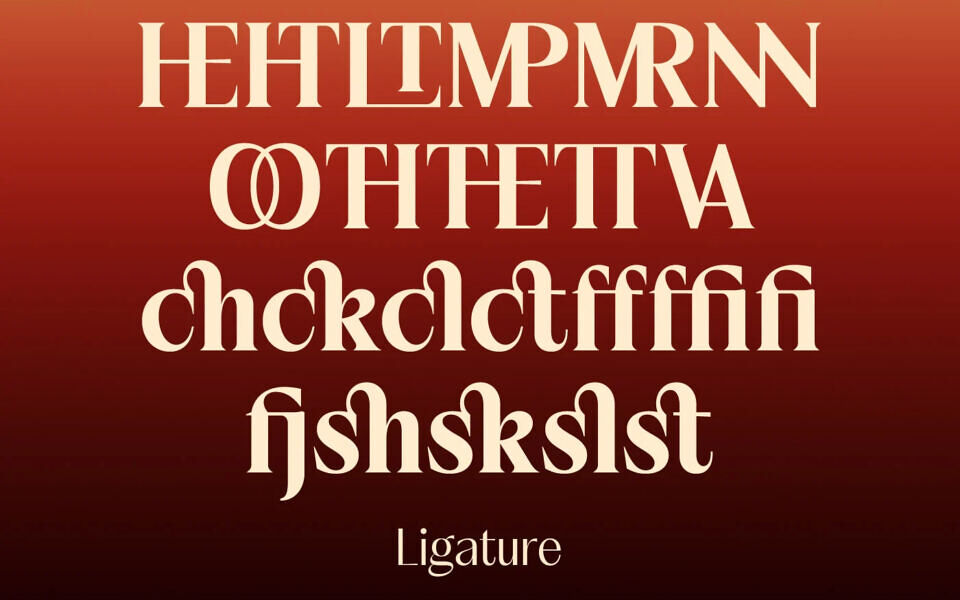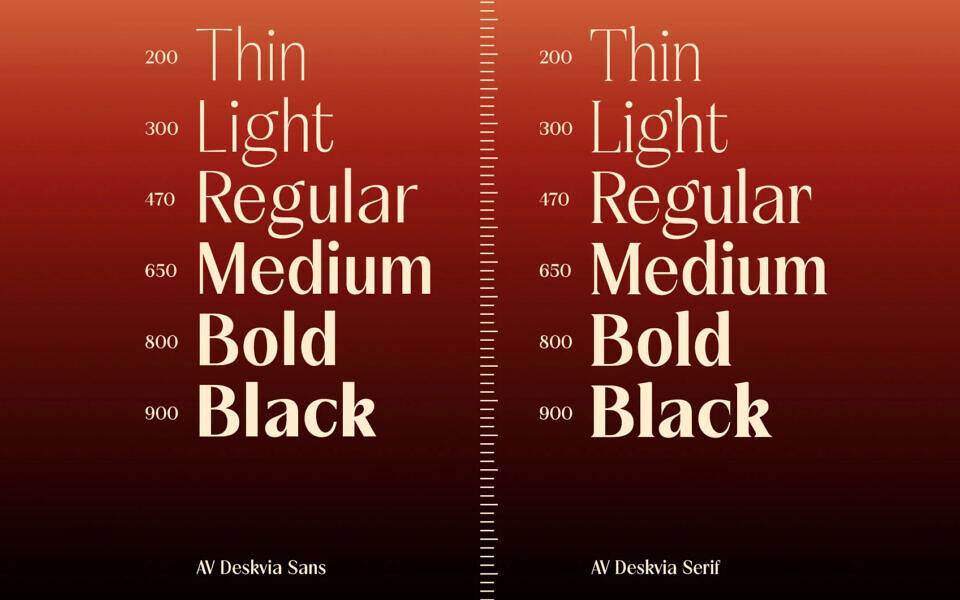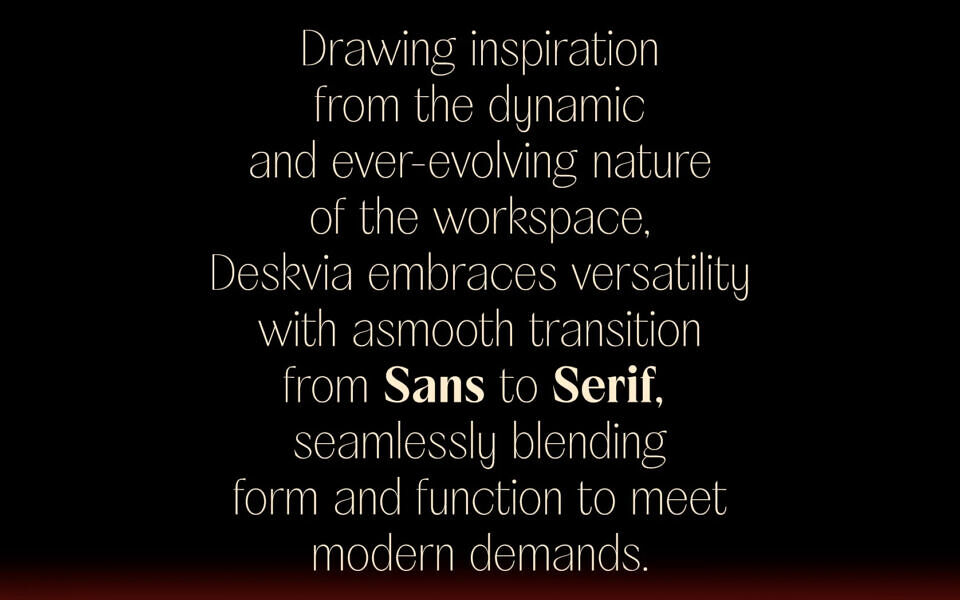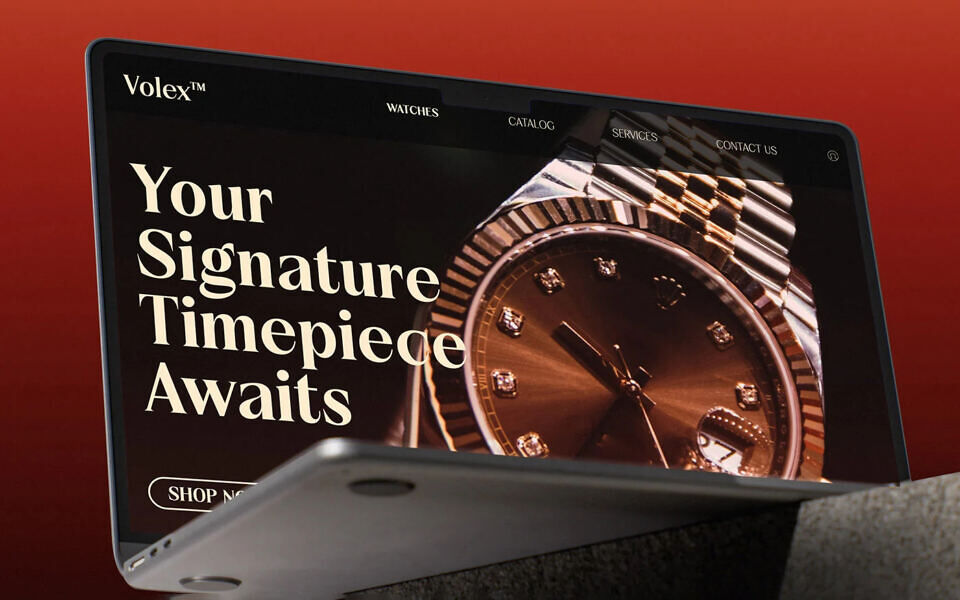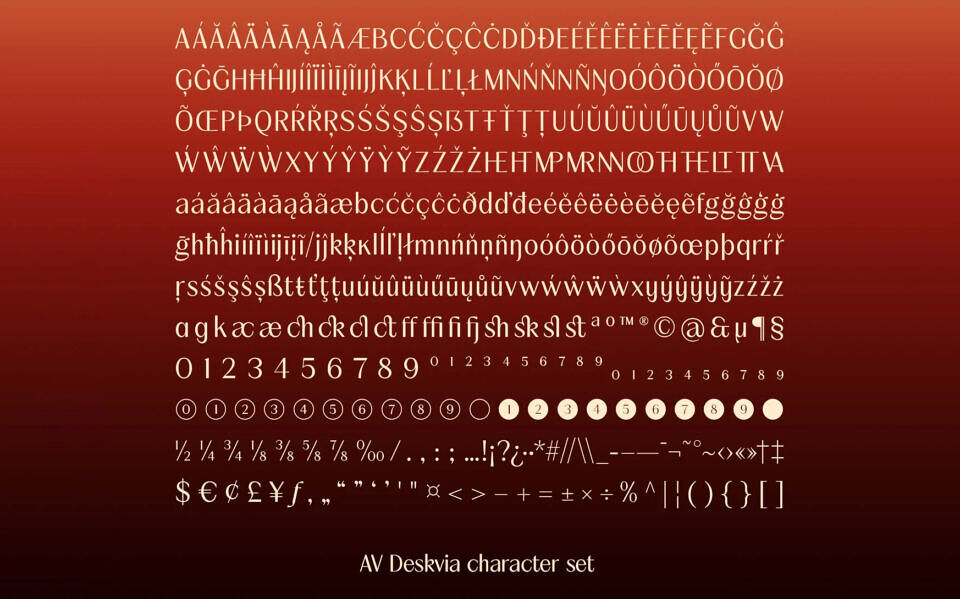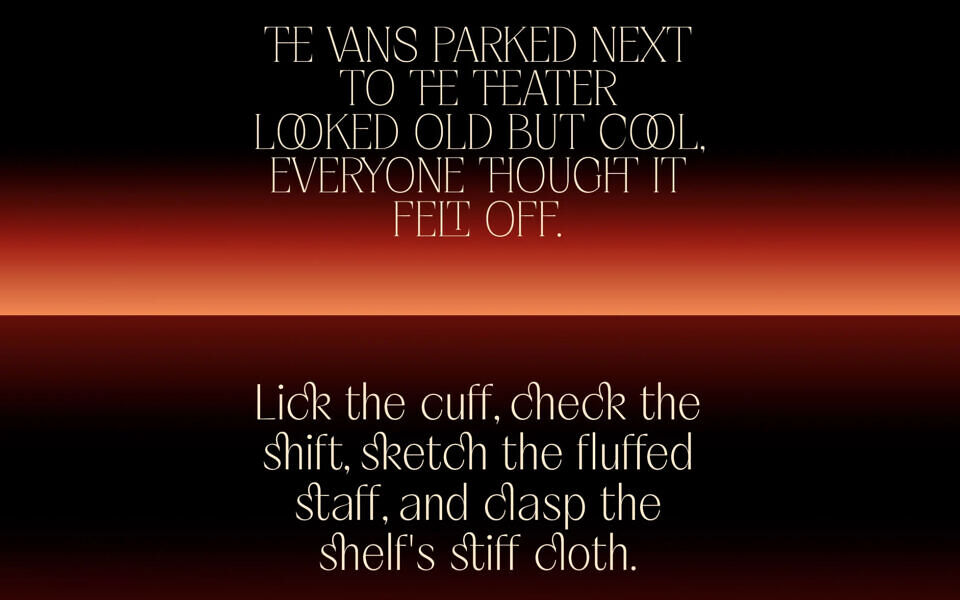
AV Deskvia Font
Drawing inspiration from the dynamic and ever-evolving nature of the workspace, Deskvia embraces versatility with asmooth transition from Sans to Serif, seamlessly blending form and function to meet modern demands.
Offering 12 styles and over 470+ characters per font, Deskvia is a flexible and comprehensive choice for modern typographic needs.